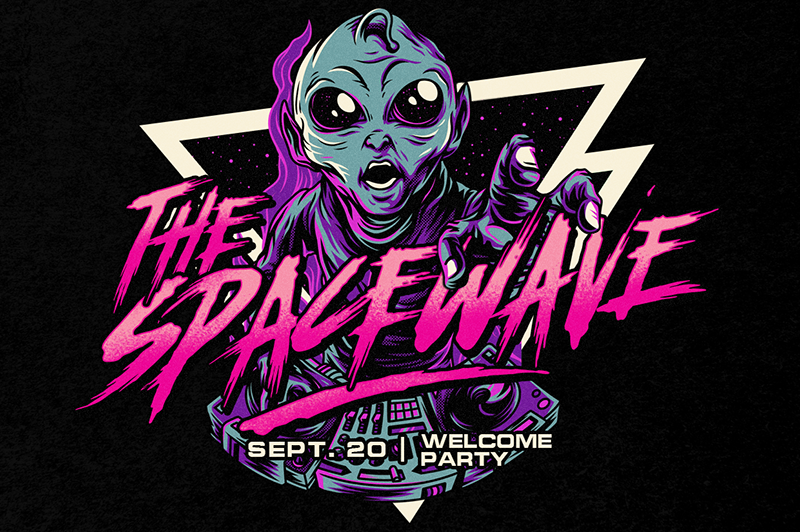
Preview and download Chapters Font. Created by The Branded Quotes in Script Trash styles with Demo license.
Demo Version for Personal Use Only. For the full version, check here: https://sellfy.com/p/bsyse8/ About this font: Here comes the font for the end times! Chapters is based from our top-selling Haze Typeface. A horror-themed lettering with solid and sharp edges. It can go well with your vector illustrations and spine-chilling photographs. The randomness of Chapters' glyph will provide the creeps to your projects! Features: Capitals, Alternates, Ligatures, Kerning, Swashes Includes: Chapters OTF,TTF and Chapters Slant OTF, TTF Tips: Toggle shift while typing for the alternates. Access the swashes through this keys ()_ and type like this Chapter_s |